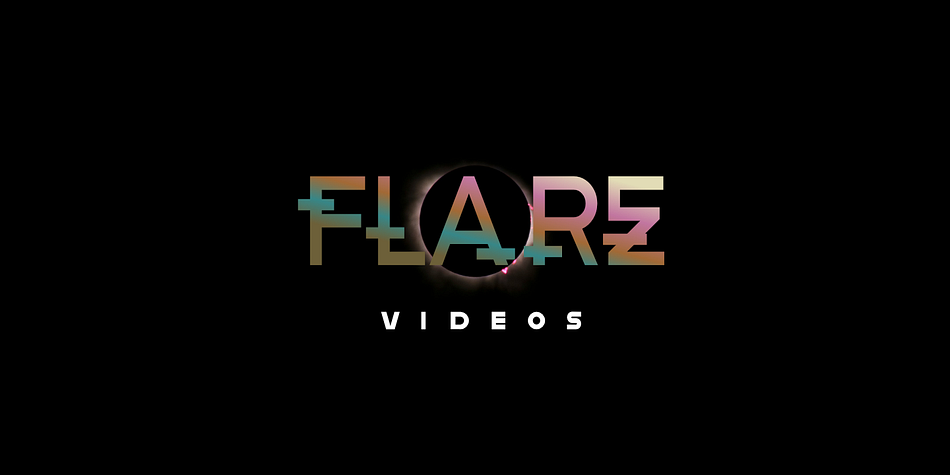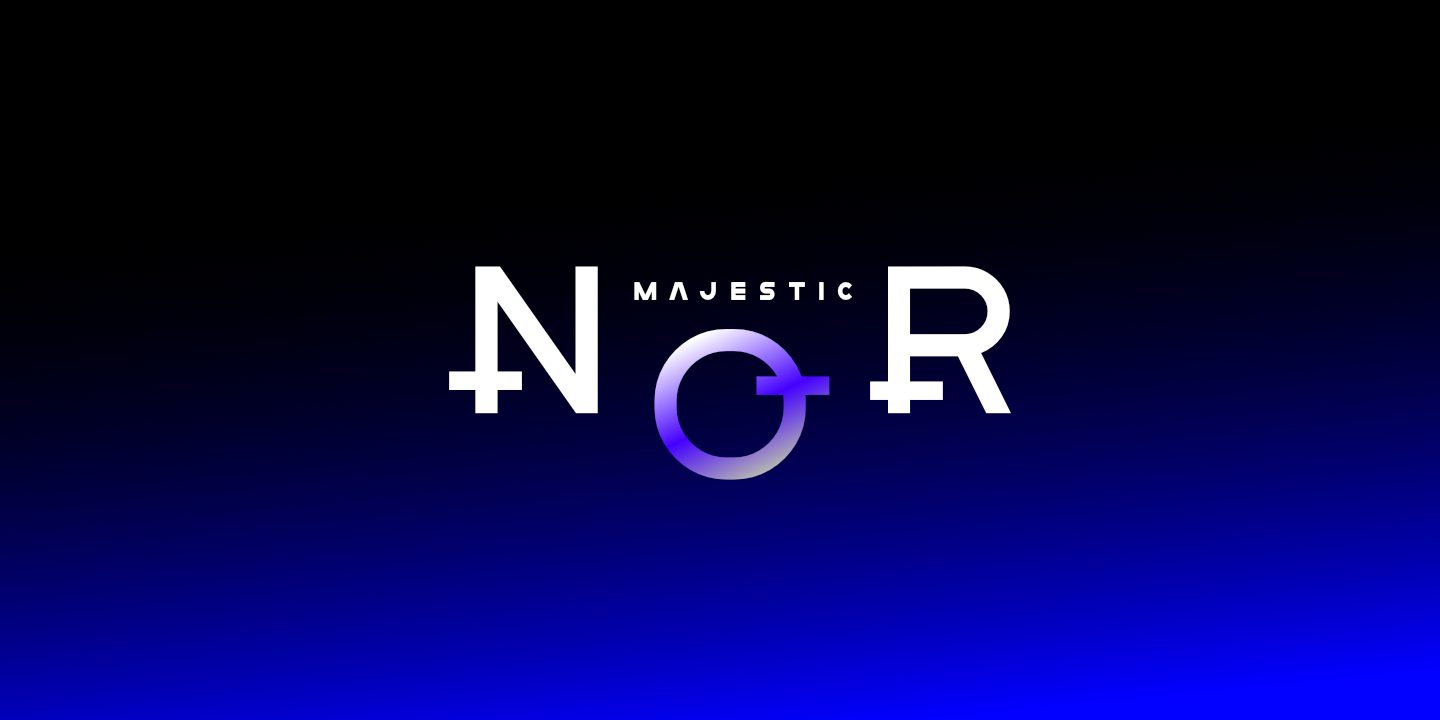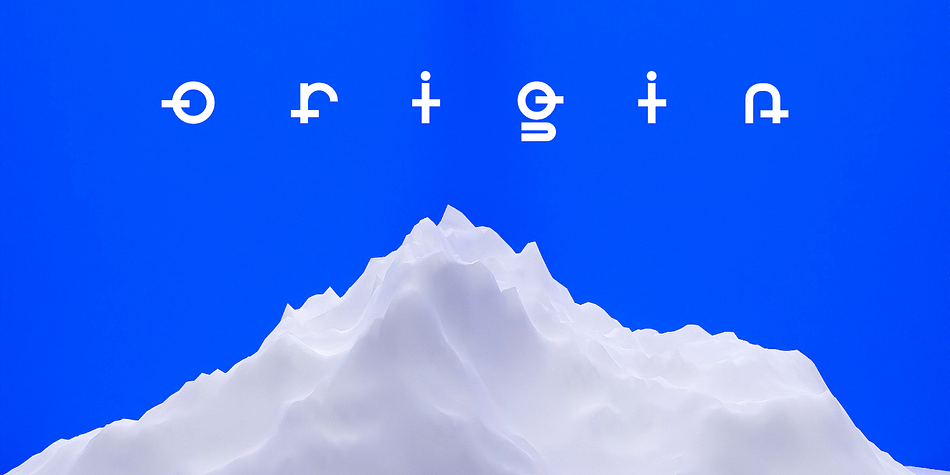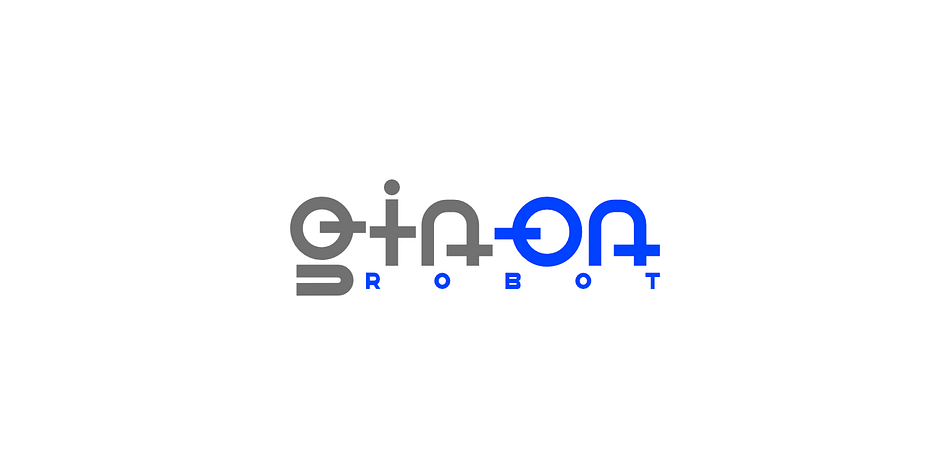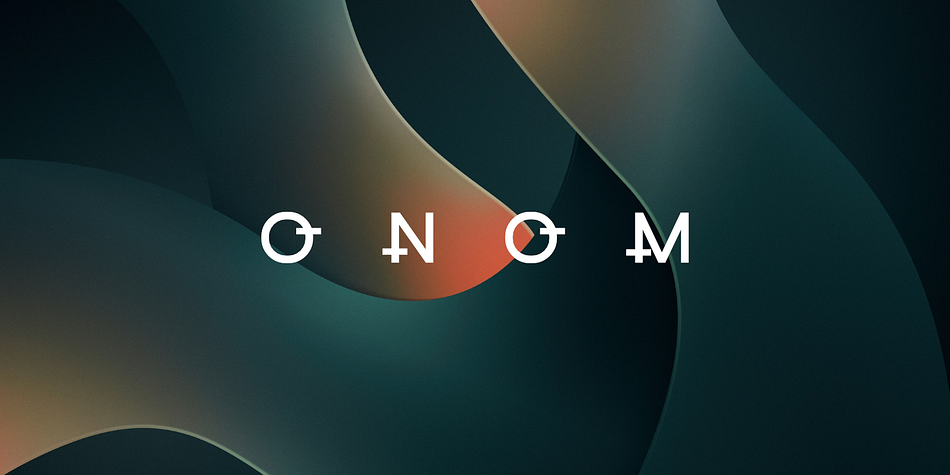
Getboreg Minus Tech
Getboreg Minus Tech is a display sans font family published by ffeeaarr.
Engineered for Excellence. These fonts are meticulously designed for optimal readability across all screen sizes and devices. They boast razor-sharp clarity, ensuring your message is delivered with impact, no matter the platform. Lightweight design ensures lightning-fast loading times, keeping your user experience smooth and uninterrupted.